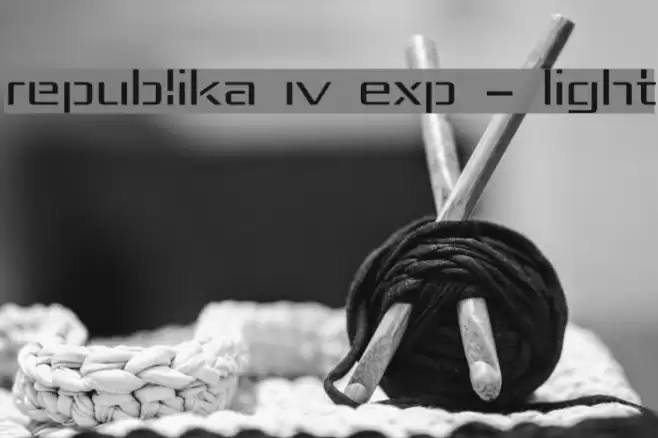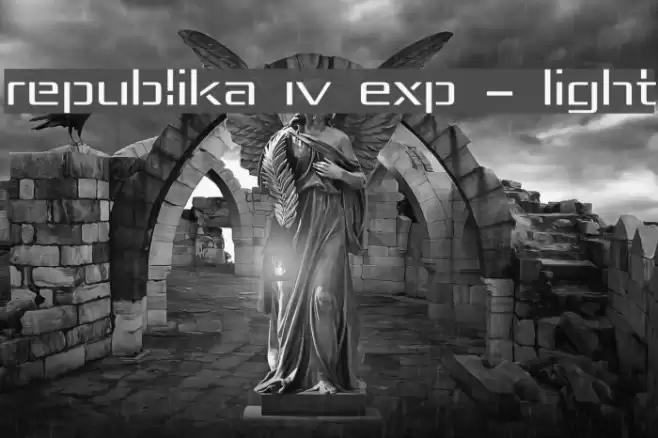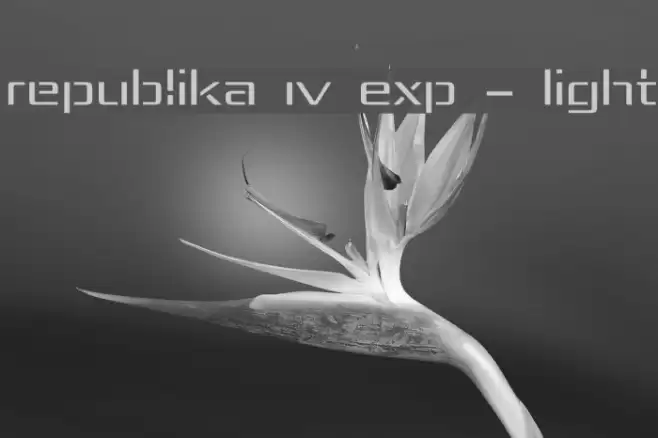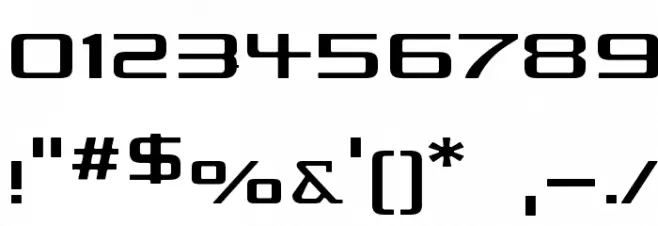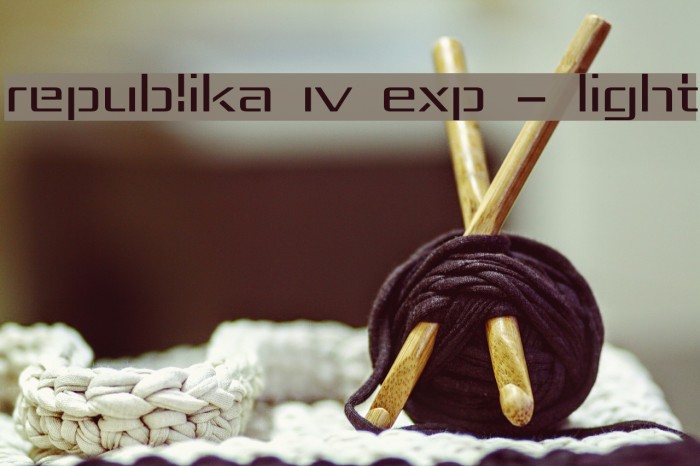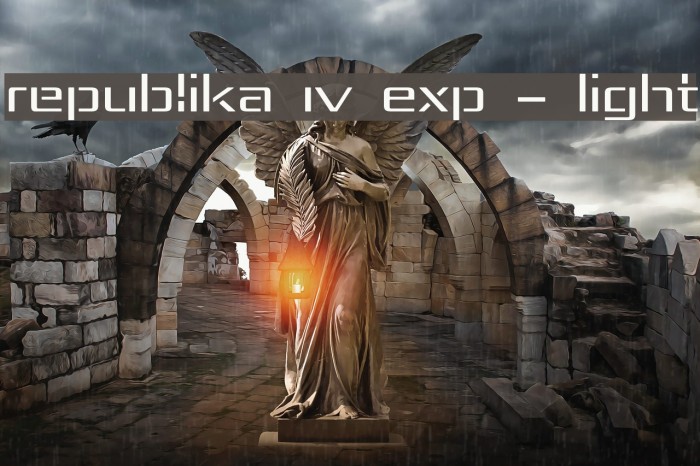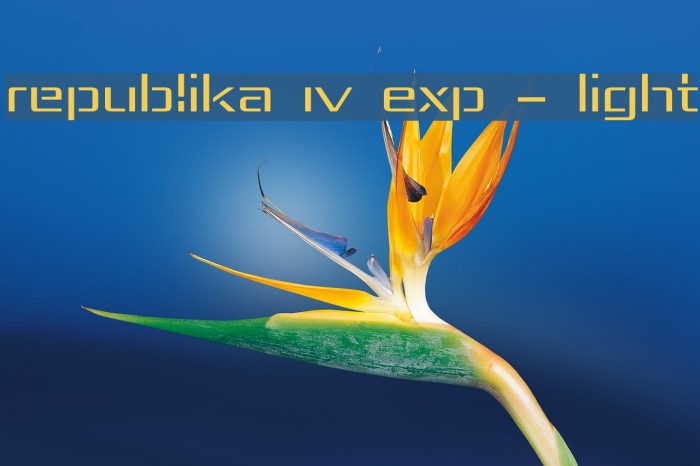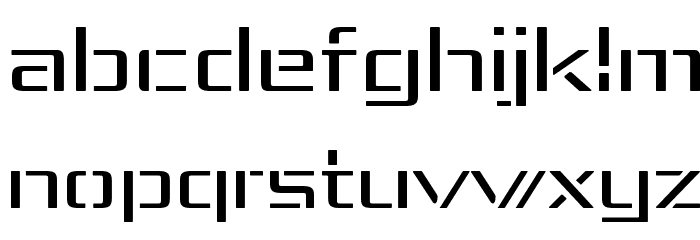
Republika IV Exp - Light Font
Republika IV Exp - Light Description
This font presents a modern and futuristic aesthetic with its geometric and angular design. The characters are constructed with a consistent stroke width, giving it a clean and uniform appearance. The uppercase and lowercase letters maintain a similar height, enhancing the font's structured and compact look. The numerals and special characters follow the same design principles, ensuring a cohesive visual style across all elements. The font's distinct style makes it suitable for digital and tech-related projects, where a contemporary and sleek look is desired.
A modern, geometric font with a consistent stroke width and angular design from Uncategorized fonts.
- Proposed Projects: Ideal for tech branding, digital interfaces, futuristic posters, and modern web design.
- Weight: Light
- Width: Expanded
- Use Case: Headlines, Logos, Digital interfaces